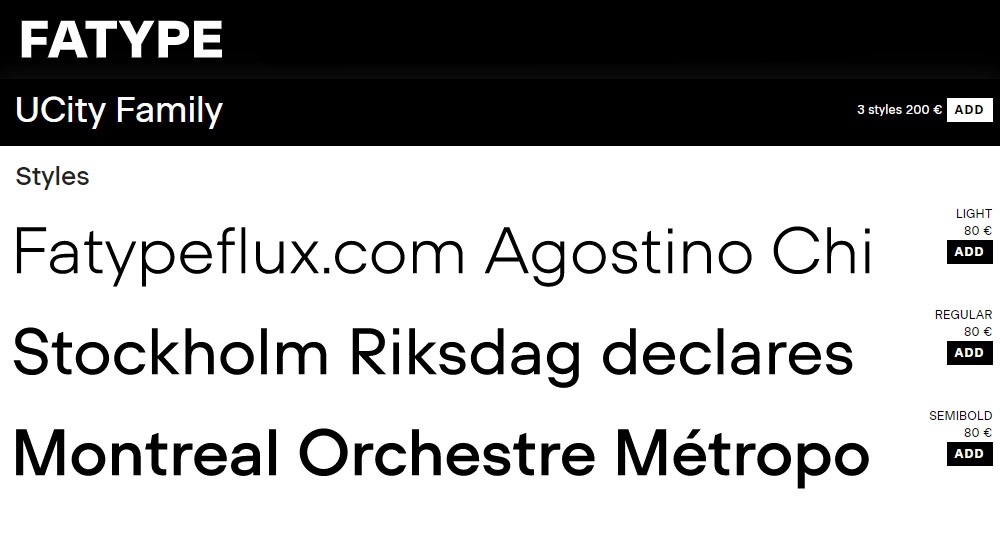
UCity Font
UCity Font is perfect for urban development projects, city planning presentations, metropolitan transit signage, modern architecture firms, smart city initiatives, municipal government communications, urban lifestyle magazines, real estate developments, transportation apps, and contemporary municipal branding.
UCity Font creates excitement because it captures the dynamic pulse of modern urban life with its clean, architectural-inspired letterforms and metropolitan aesthetic. The font's contemporary design reflects the innovation and forward-thinking spirit of thriving cities, making any project appear cutting-edge and progressive. Its geometric precision and urban-influenced character shapes evoke the structural beauty of modern cityscapes, creating an immediate connection with audiences who appreciate urban sophistication and metropolitan lifestyle.
The UCity Font family includes multiple weights and styles: Regular, Bold, Light, Medium, Italic, Bold Italic, Condensed, Extended, and Display versions. Each variant preserves the font's urban character while offering different visual densities and applications suitable for various metropolitan communication needs.
This innovative typeface brings the energy of city life into modern design projects with remarkable authenticity. UCity Font Free Download provides designers and urban planners with access to professionally crafted typography that embodies the spirit of contemporary metropolitan environments. The font's sleek architecture and modern sensibilities make it perfect for projects requiring a sophisticated urban aesthetic. Whether you're developing city branding initiatives, creating transportation signage, designing real estate marketing materials, or producing content for urban lifestyle brands, this font delivers the contemporary appeal that resonates with city dwellers and urban enthusiasts. Its versatile design ensures excellent performance across digital platforms and print media while maintaining clarity at various scales. The font's geometric foundation provides stability and reliability, essential qualities for municipal and commercial applications. Urban professionals value its ability to convey progress and innovation while remaining highly functional for wayfinding and informational purposes. The extensive character set includes symbols and multilingual support, making it ideal for diverse metropolitan communities and international urban development projects seeking modern, accessible communication solutions.